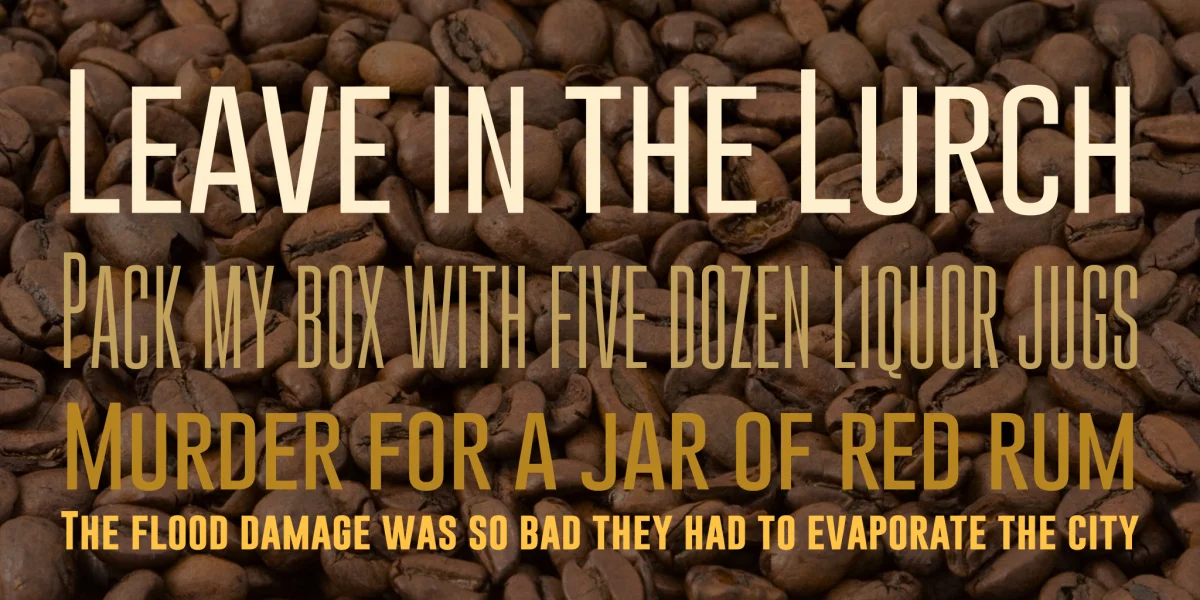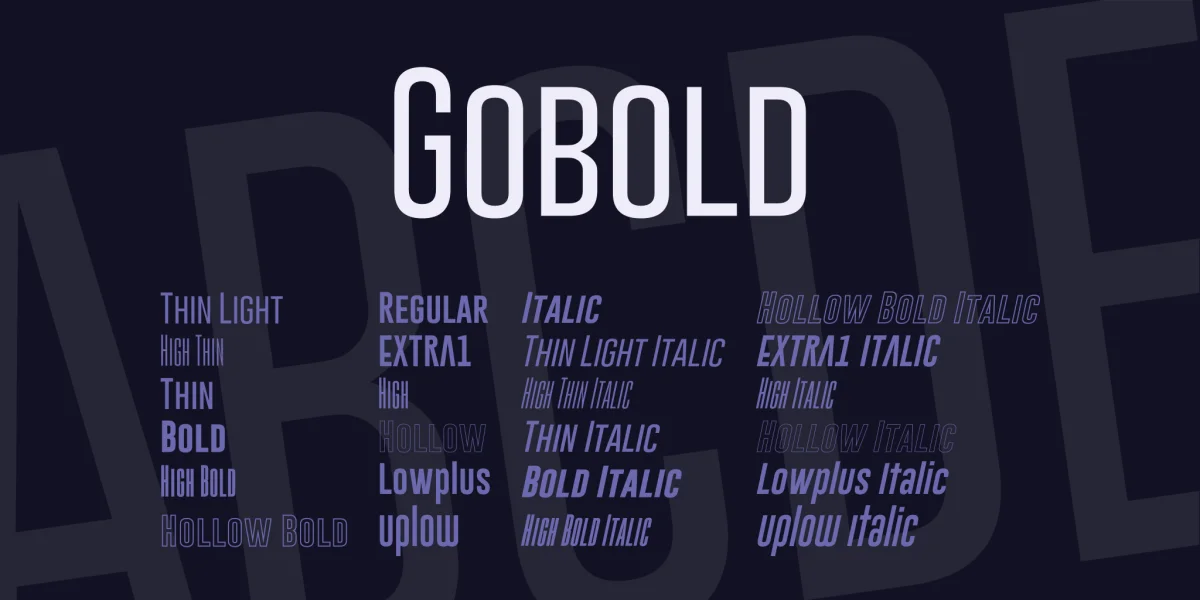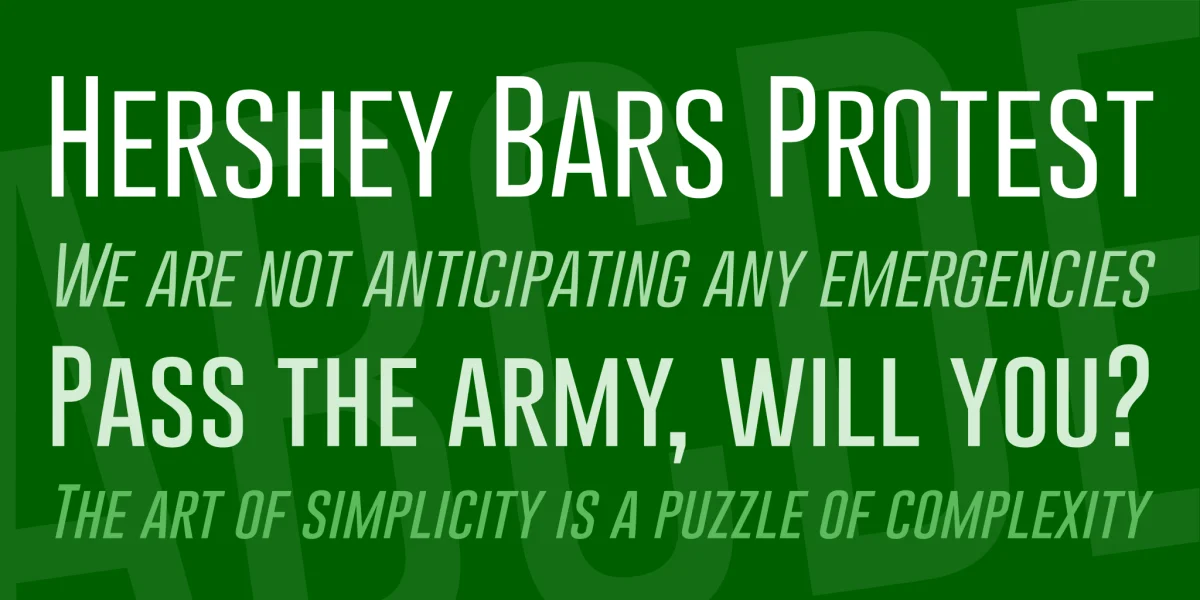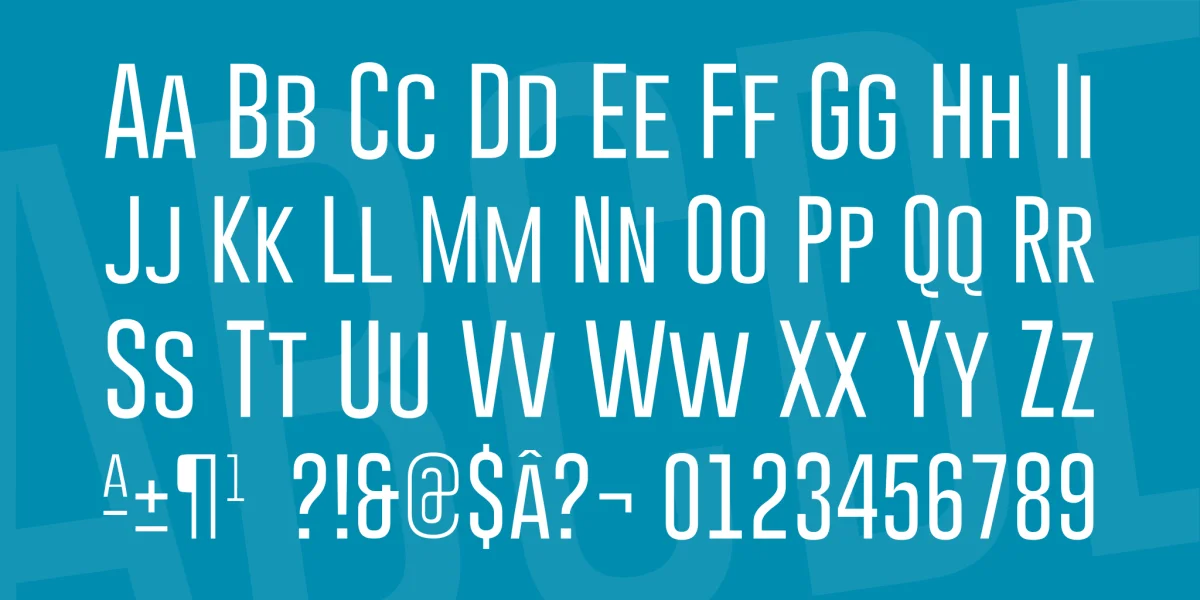
The combination of thickness and height makes Gobold perfect for headlines, posters, leaflets, name cards, etc. Free for personal use. Buy the license for commercial use on www.creativefabrica.com/product/gobold/ref/87/